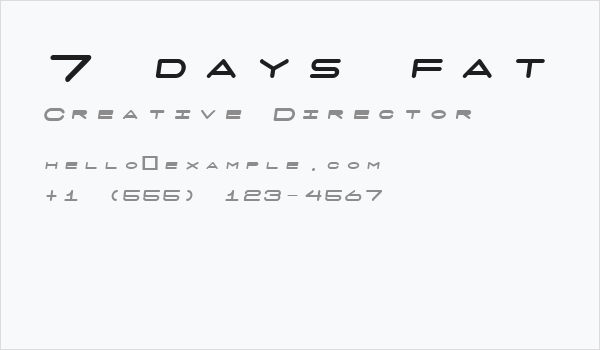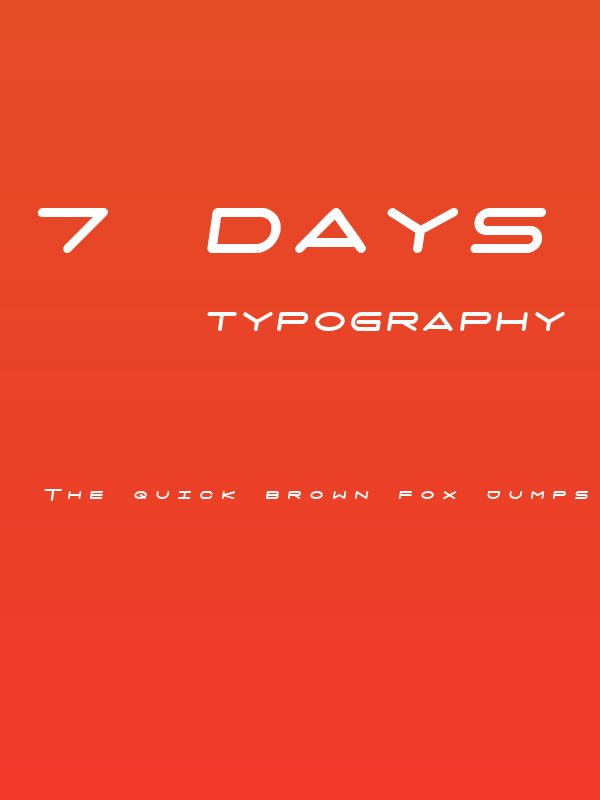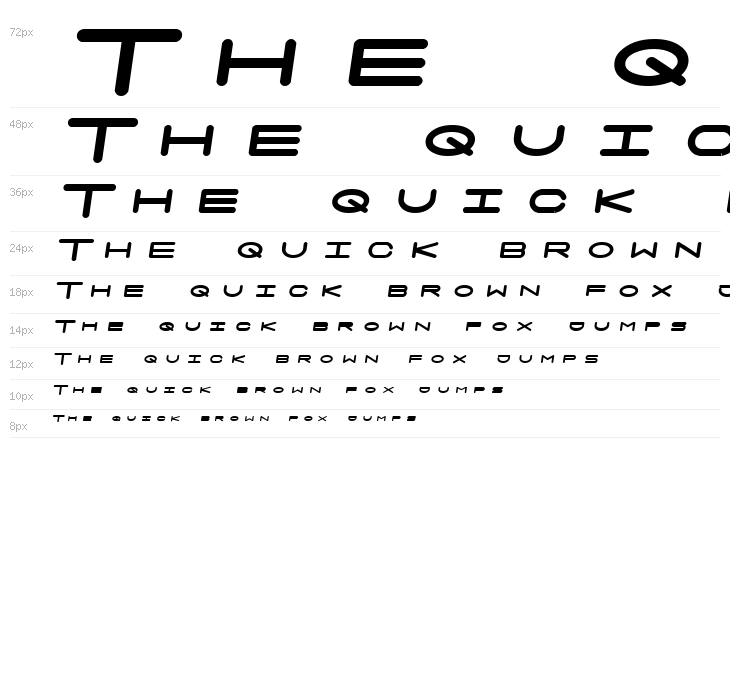
7 days fat oblique Font
7 days fat oblique Description
This font features a sleek, modern design with an oblique slant, giving it a dynamic and forward-moving appearance. The characters are bold and rounded, with a futuristic feel that is both stylish and functional. The uppercase and lowercase letters maintain a consistent style, with smooth curves and clean lines. The numerals are equally bold, ensuring readability and impact. Special characters are included, matching the overall aesthetic and providing versatility for various design needs.
| Overall Style | Modern, Futuristic |
| Use Case | Logos, Headlines, Branding |
| Proposed Projects | Ideal for technology branding, sports team logos, or modern advertising campaigns. |